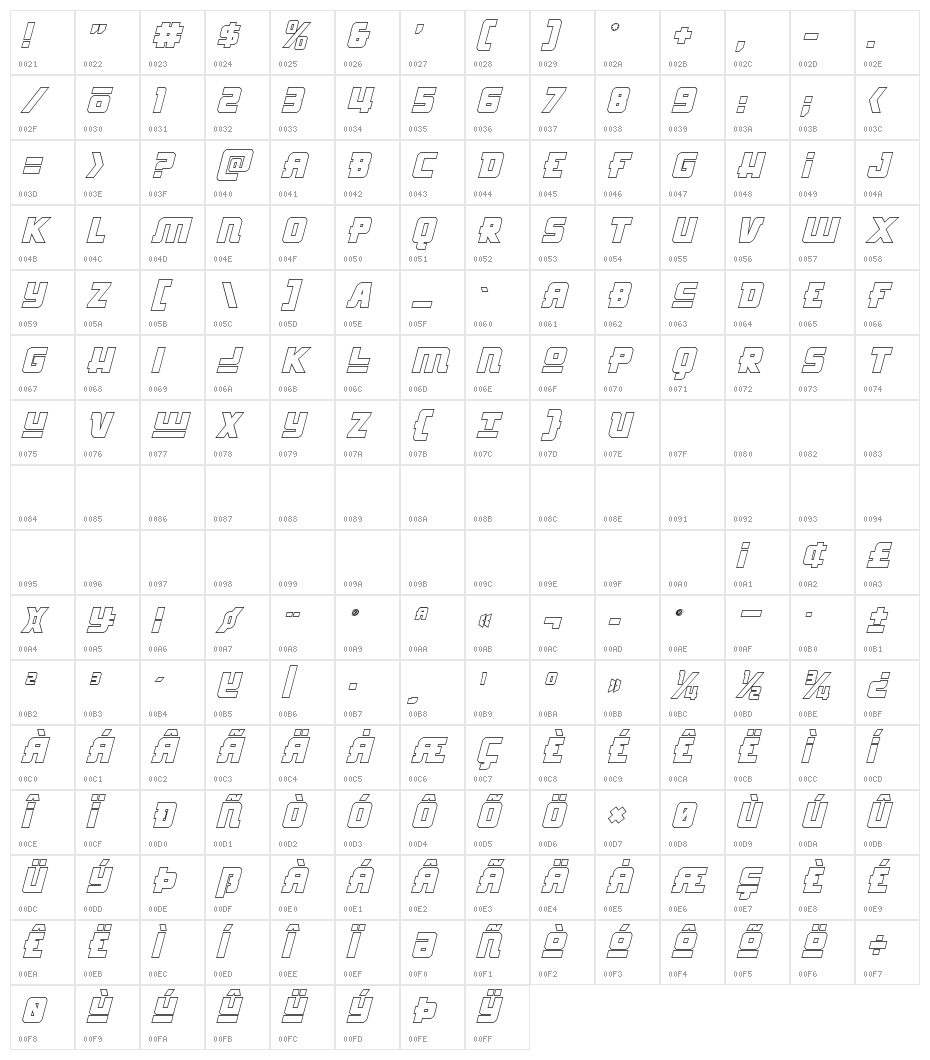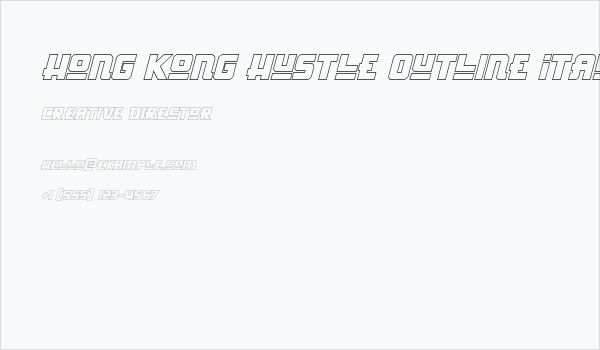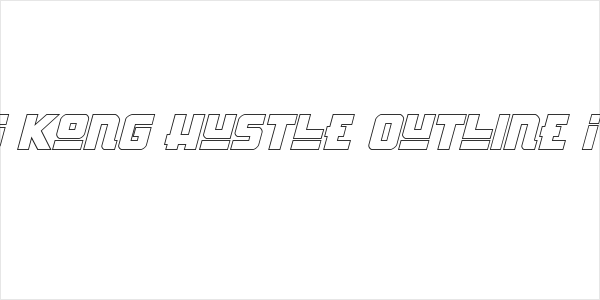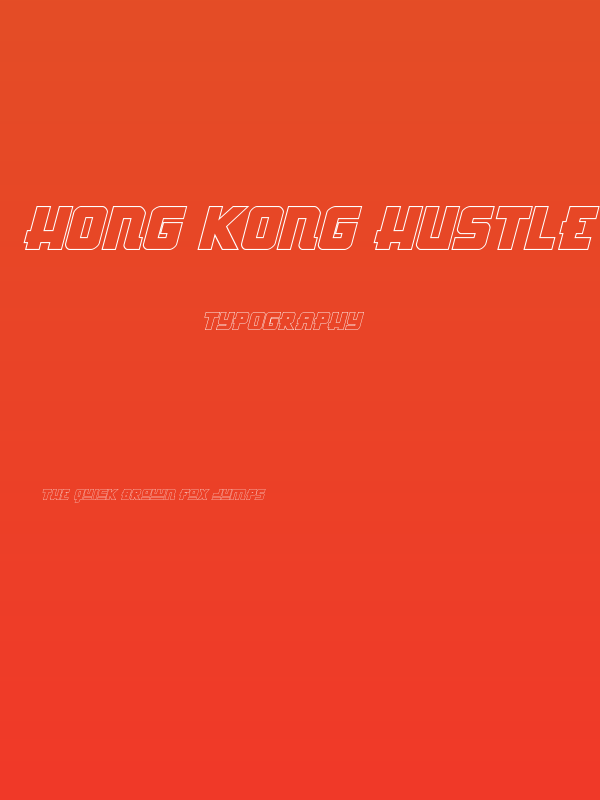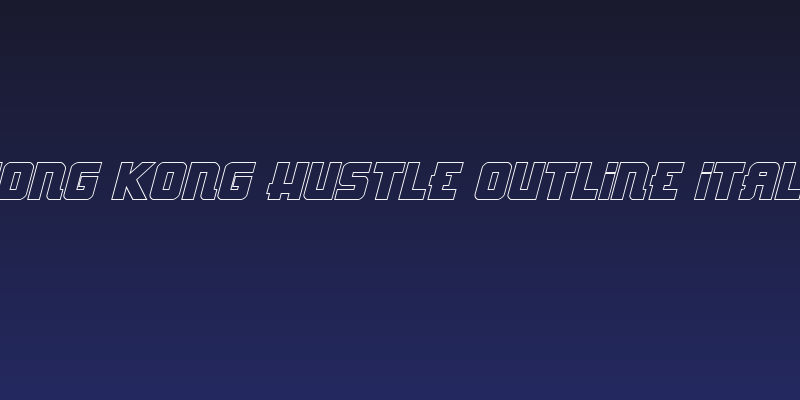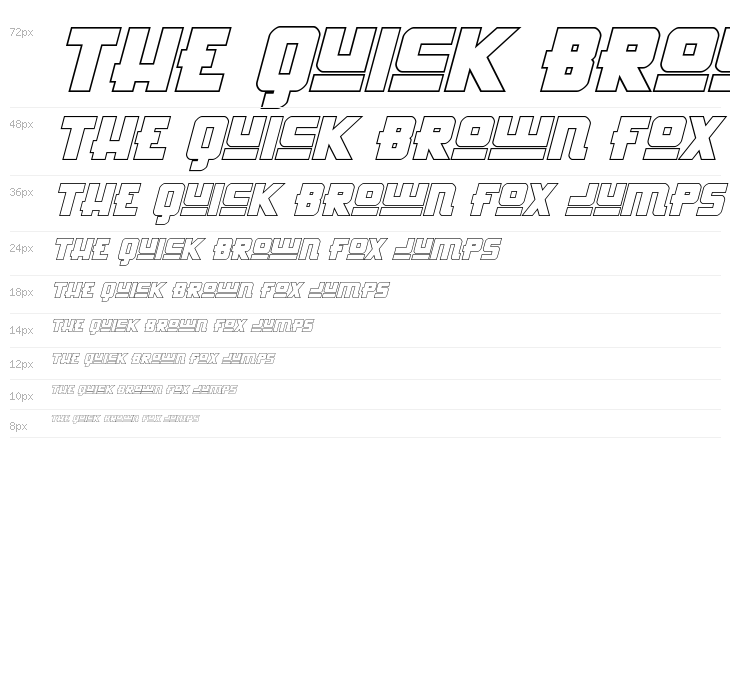
Hong Kong Hustle Outline Italic Font
Hong Kong Hustle Outline Italic Description
This font features a bold, geometric outline style with a distinct italic slant, giving it a dynamic and modern appearance. The characters are constructed with sharp angles and clean lines, creating a futuristic and tech-inspired look. The uppercase and lowercase letters maintain a consistent design, enhancing readability while providing a unique aesthetic. The numbers and special characters follow the same stylistic approach, ensuring uniformity across all glyphs. The outline nature of the font adds an element of depth and dimension, making it suitable for eye-catching designs.
| Proposed Projects | Ideal for tech-themed posters, modern branding, video game titles, and futuristic event flyers. |